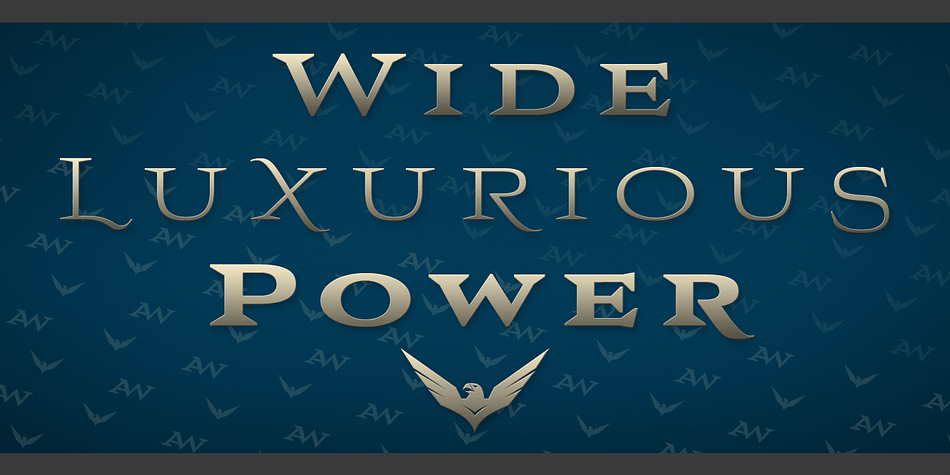
AVIANO WEDGE
Aviano Wedge is a display serif font family. This typeface has six styles and was published by Insigne Design.
Firm and resolute, the sharp, triangular wedge serifs of the new Aviano Wedge stamps your copy with the confidence of late 19th century luxury, wealth, and power.
Indicative of banknotes and financial strength, the large, elegant Aviano Wedge is composed in the Latin style.
Aviano Wedge takes its original footing from period signage found on a building in Asheville, NC.
While shaped largely by engraved faces, the elegant Aviano Wedge maintains the extra-wide comfort and ease found with the rest of the Aviano series.
Aviano Wedge comes in six different weights and is packed with OpenType features.
As a complement to these characters, Aviano Wedge includes 40 discretionary ligatures for artistic typographic compositions.
This new face has also been designed to pair well with the rest of the Aviano series: